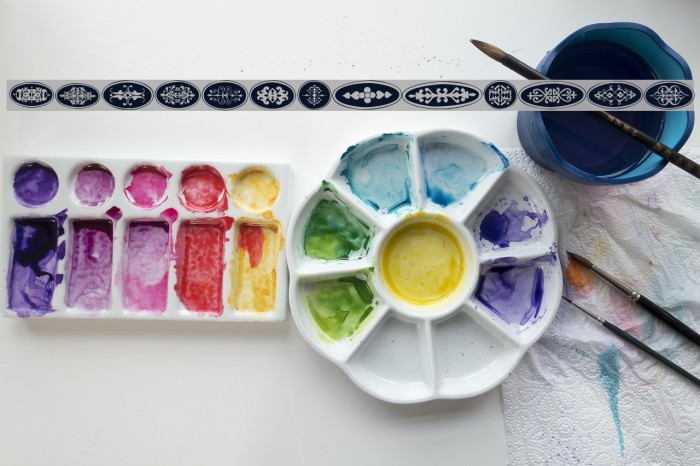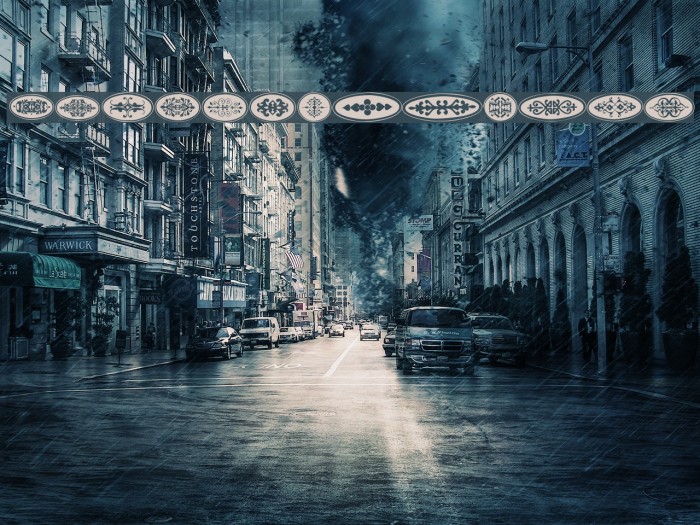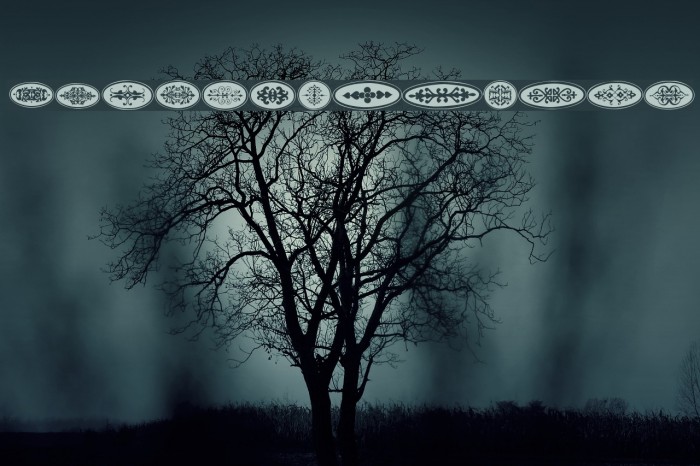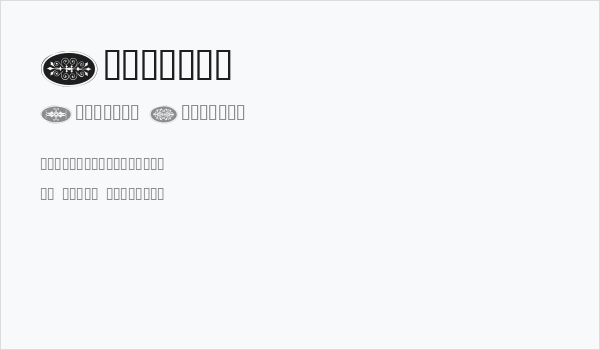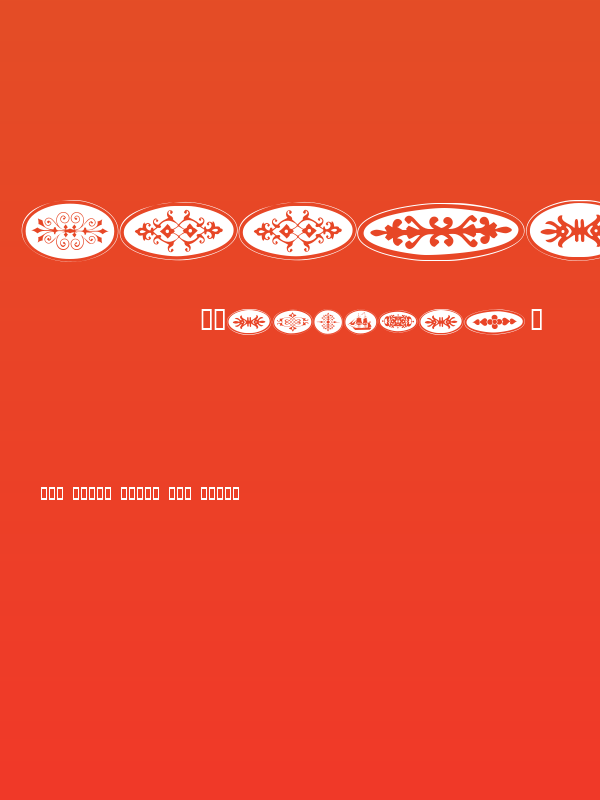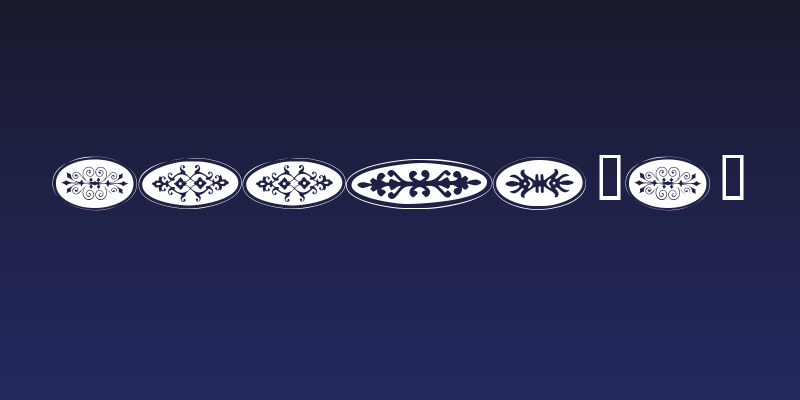
Ellipses Font
Ellipses Description
A decorative display set featuring ornate, oval-shaped emblems with intricate patterns and pictorial motifs, presented in a bold, high-contrast style. The glyphs are enclosed within thick, black elliptical borders, emphasizing ornamental and illustrative qualities rather than traditional alphanumeric characters.
| Overall Style | Decorative, Ornamental, Vintage |
| Use Case | Logos, Decorative elements, Thematic headlines |
| Proposed Projects | Branding, packaging, certificates, invitations, decorative signage, themed event graphics. |